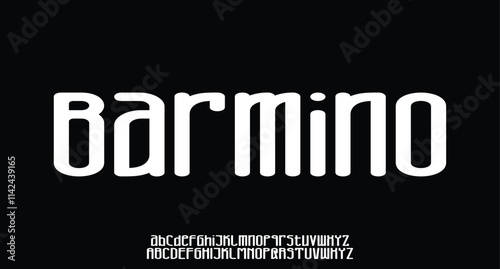
Geometric alphabet letter font. Modern logo letters inner cut serifs. Minimalistic vector typographic design. Internal angled serifs bevel type for tech logo, headline, monogram, lettering, branding